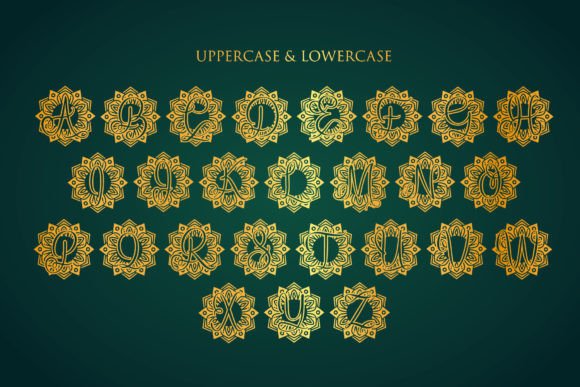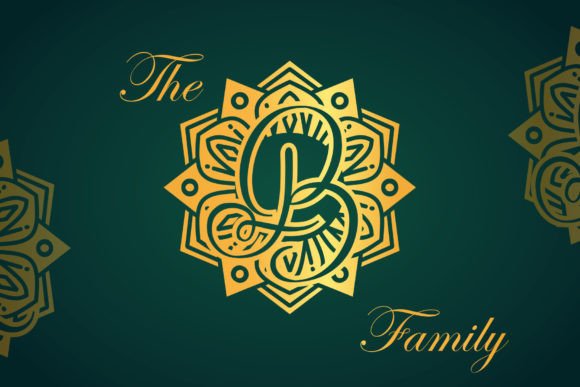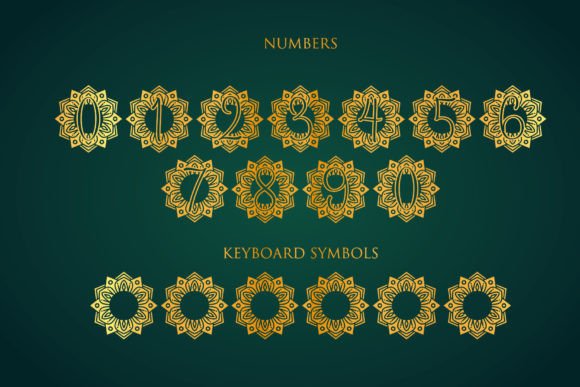
Introducing the Bright Mandala Monogram Font: Elevate Your Designs with Elegance
In the world of design, fonts play a crucial role in conveying the essence and aesthetic of a project. For crafters, logo designers, and artists, finding the perfect font can be a game-changer. This is where the Bright Mandala Monogram Font comes into play, offering an elegant and unique decorative solution inspired by the intricate beauty of mandala art.
What is Bright Mandala Monogram Font?
The Bright Mandala Monogram Font is a distinctive typeface that embodies the sophisticated and harmonious qualities of mandalas. Mandalas, known for their intricate designs and spiritual significance, have long been a source of inspiration in art and design. This font brings those elements into the realm of typography, providing users with a tool that is both decorative and meaningful.
Key Features of Bright Mandala Monogram Font
- Elegant Design: Each letter in the Bright Mandala Monogram Font is crafted with precision, featuring elaborate details that reflect the beauty of mandala art.
- Unique Monograms: The font includes a variety of monograms, perfect for creating personalized logos, crafts, or any design that requires a touch of sophistication.
- Versatility: Whether you’re working on a logo, a crafting project, or adding a personal touch to your collection, this font offers the versatility needed to bring your ideas to life.
Applications of Bright Mandala Monogram Font
The applications of the Bright Mandala Monogram Font are vast and varied. Here are a few ways designers and crafters can utilize this elegant font:
- Logo Design: Create memorable and impactful logos for businesses, events, or personal brands that stand out with the unique monograms.
- Crafting Projects: Add a professional and artistic touch to your handmade crafts, such as personalized jewelry, stationery, or home decor items.
- Digital Art and Illustration: Use the font in digital art projects to add text elements that are both visually appealing and meaningful.
- Stationery and Invitations: Elevate your stationery, invitations, or greeting cards with elegant monograms that leave a lasting impression.
Why Choose Bright Mandala Monogram Font?
In a market flooded with generic fonts, the Bright Mandala Monogram Font stands out for several reasons:
- Uniqueness: Its design is unlike any other, providing users with a distinctive look that can set their projects apart.
- Cultural Significance: Inspired by mandala art, the font carries a sense of tradition and spirituality, adding depth to designs.
- Quality and Craftsmanship: The attention to detail in each character reflects a high level of craftsmanship, ensuring that your designs look professional.
The Bright Mandala Monogram Font is more than just a typeface; it’s a design element that can transform your projects with its elegance and uniqueness. Inspired by the intricate and harmonious nature of mandalas, this font offers designers and crafters a tool to add sophistication and meaning to their work. Whether you’re creating logos, crafts, or digital art, the Bright Mandala Monogram Font is an excellent choice for those looking to elevate their designs and make a lasting impression.
Embrace the beauty of mandala art in your typography and discover a new level of elegance and uniqueness in your designs with the Bright Mandala Monogram Font.